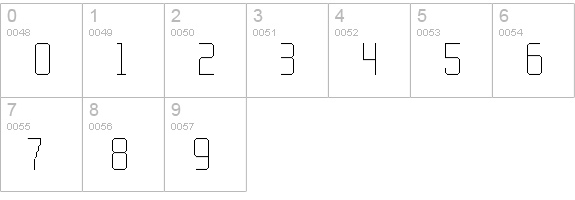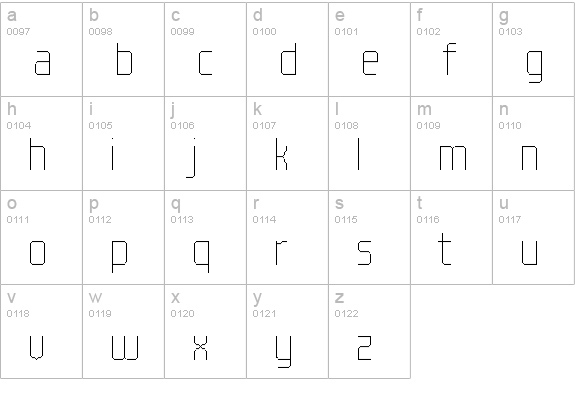
Proce55ing Light Font Details
Proce55ing Light is a refined, elegant variant in the Proce55ing typeface family \xE2\x80\x94 well suited to elegant body text, refined sub-headings, and luxury branding.
Proce55ing Light font is a sleek and modern typeface that exudes elegance and sophistication. With its clean lines and contemporary design, this font is perfect for a wide range of design projects, from branding to editorial work. The light weight of this font adds a touch of delicacy and refinement to any text. What makes Proce55ing Light font even more appealing is that it is available for free download at FontsMarket.com. This means that you can easily access and use this stylish font in your creative endeavors without any cost. Don't miss out on the opportunity to enhance your designs with the timeless beauty of Proce55ing Light font.